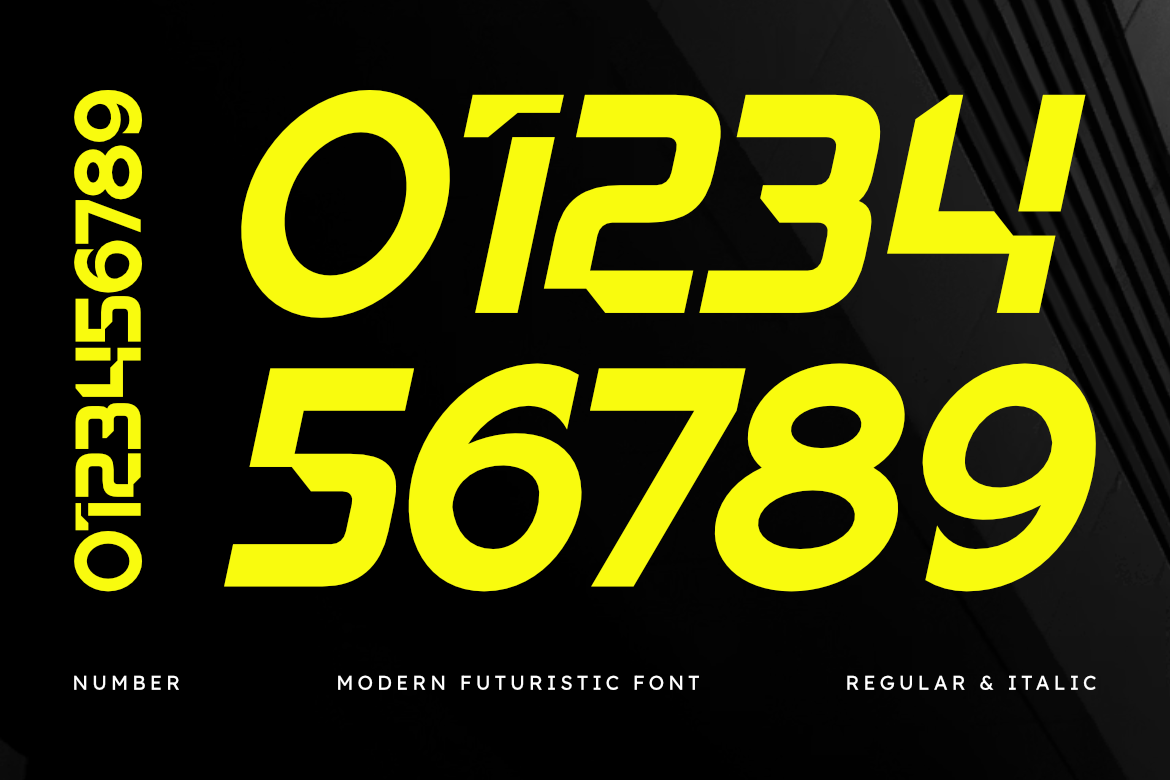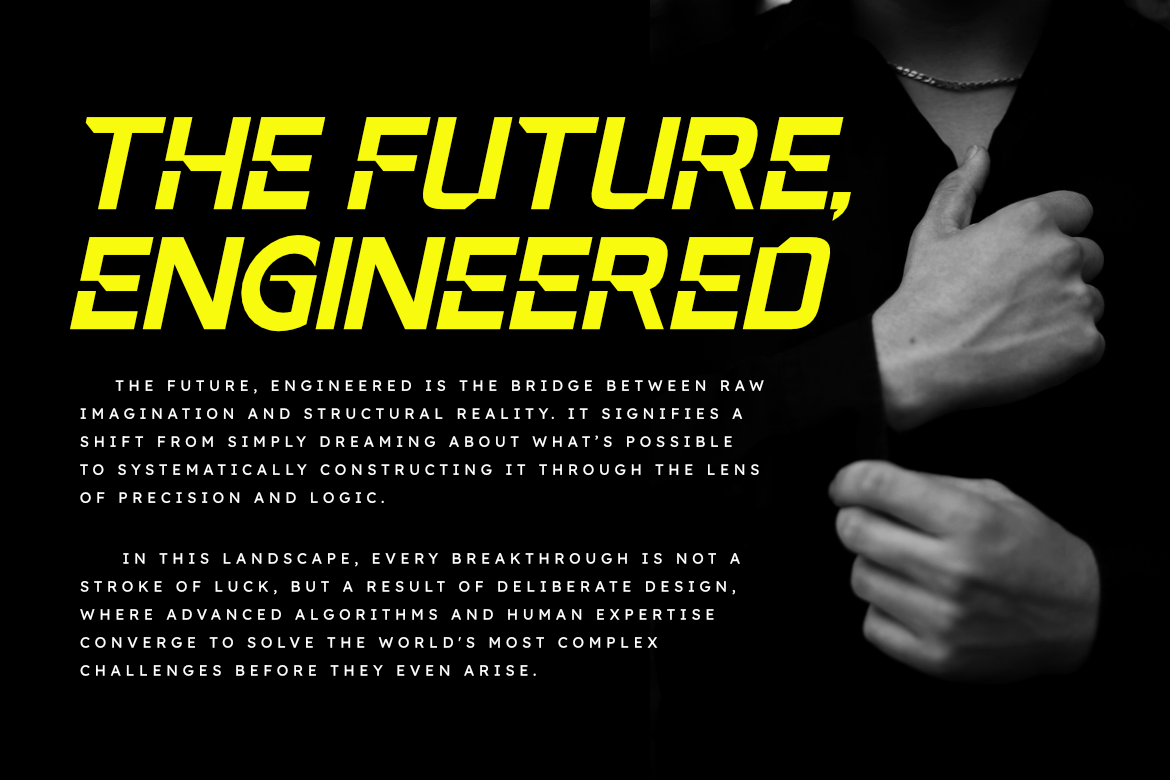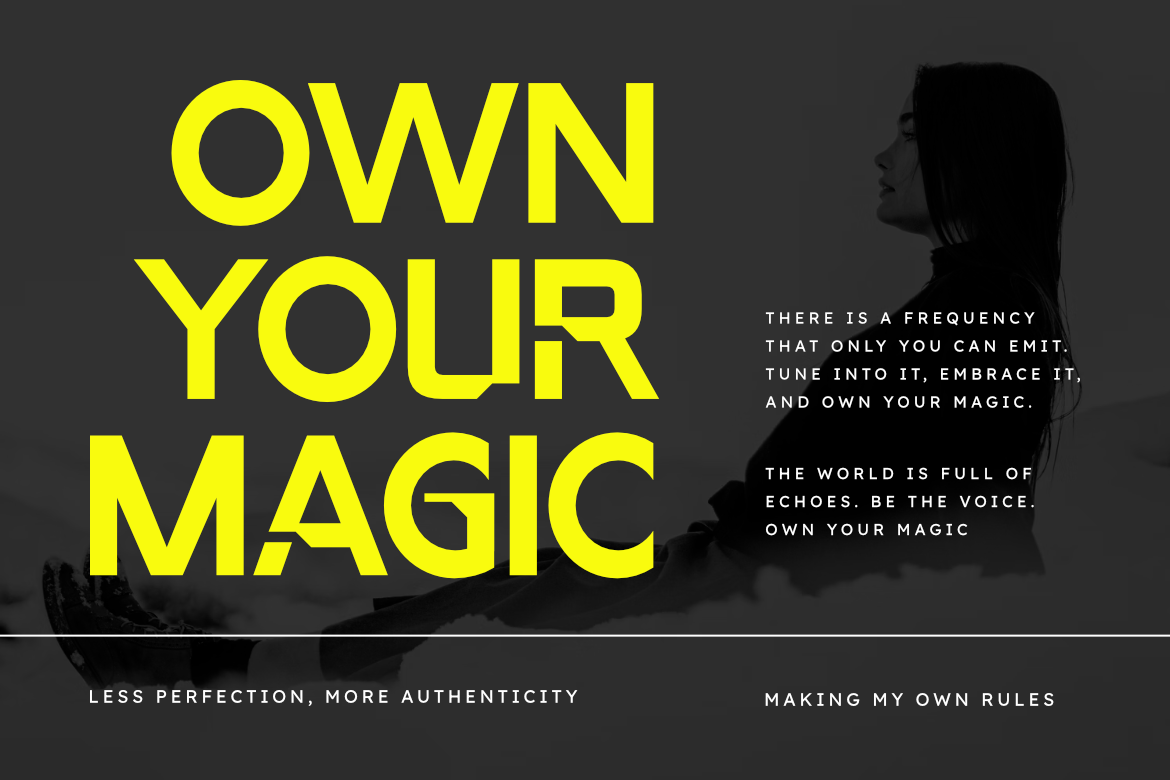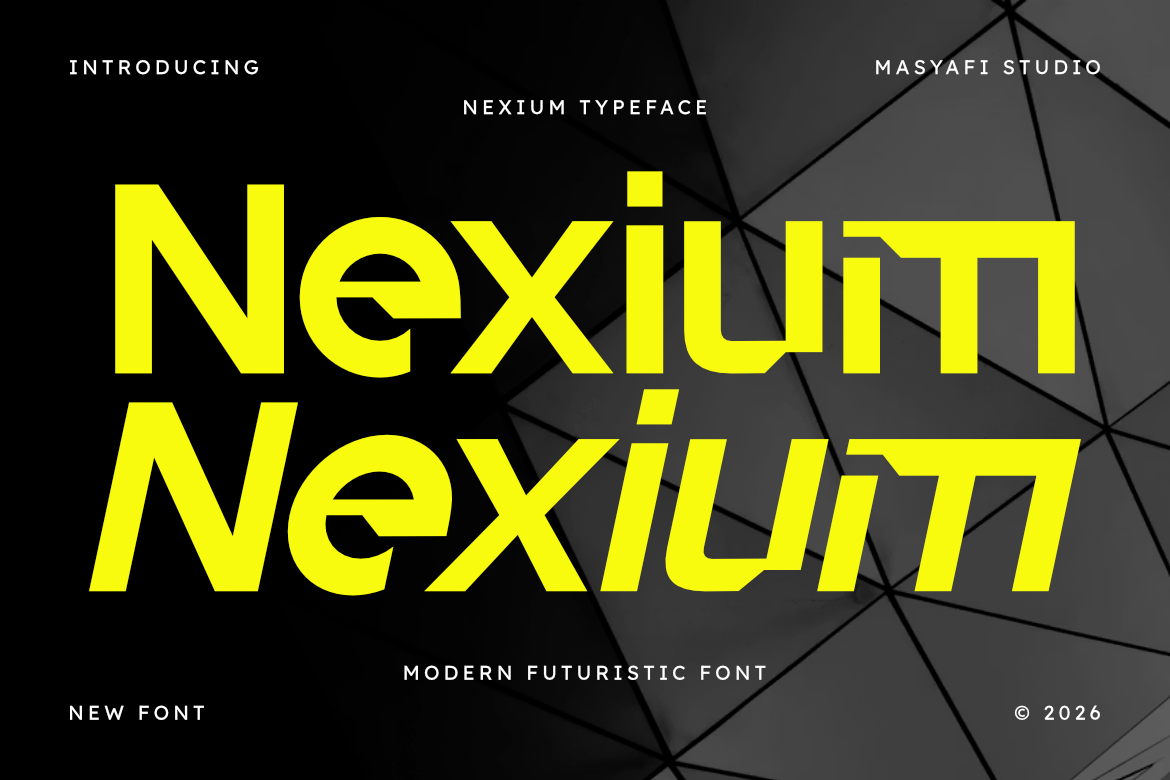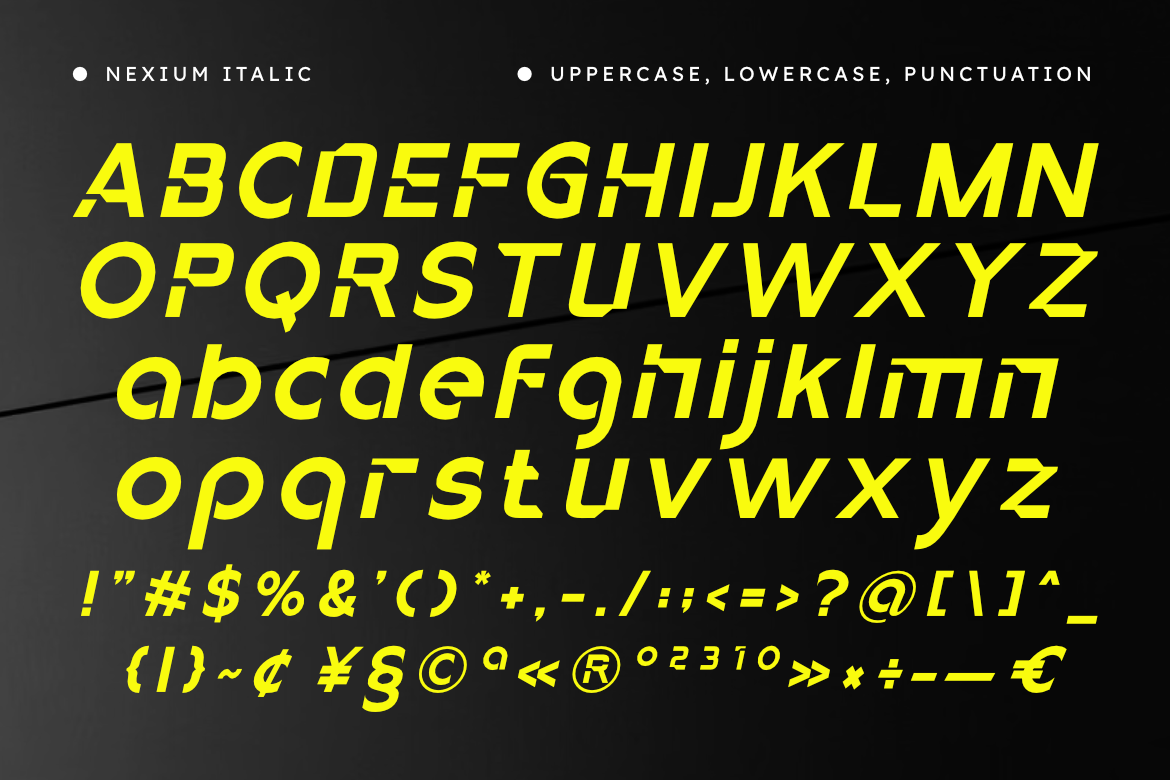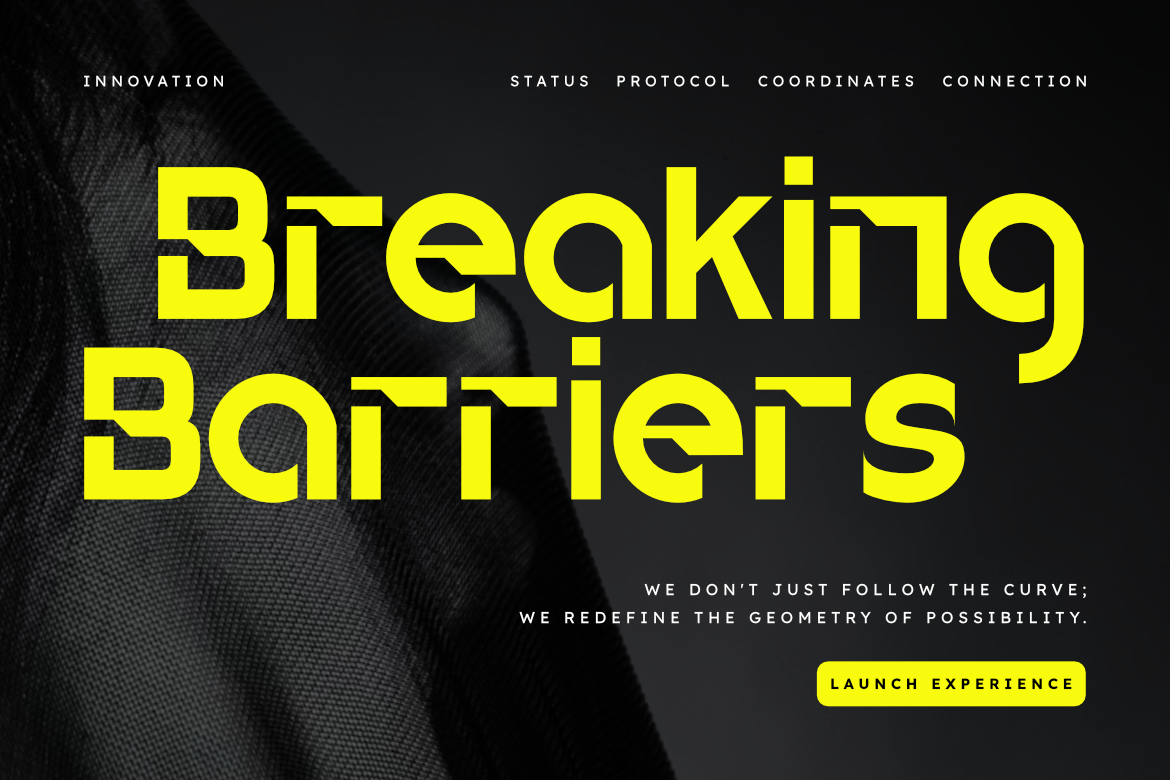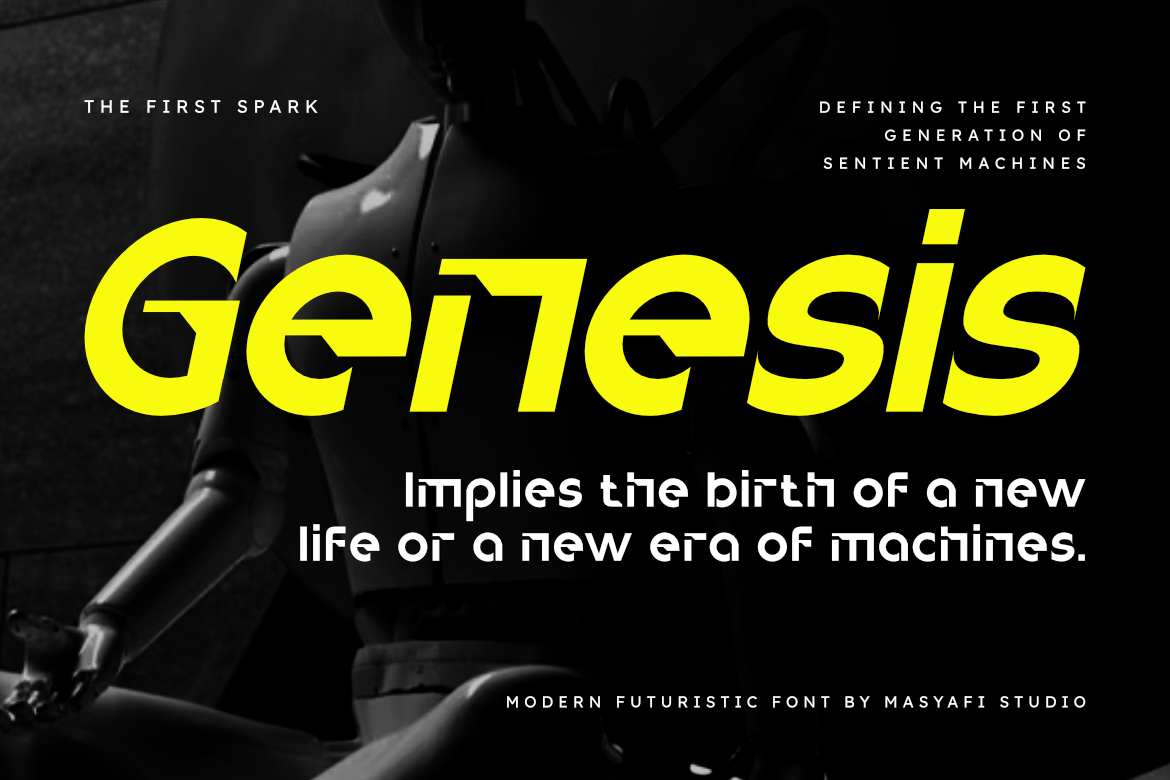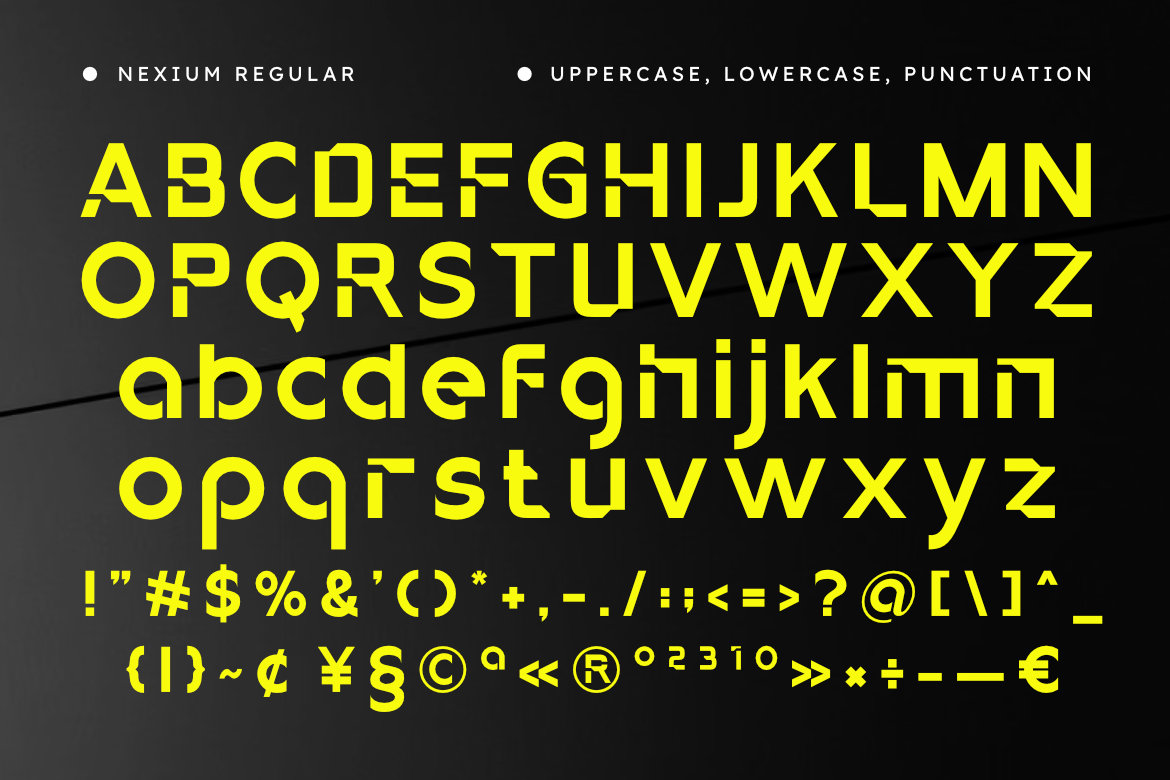
Nexium - Modern Futuristic Font
Modern Futuristic Font for Technology Brand Identity dan Logos
Nexium - Modern Futuristic Typeface
Nexium is a cutting-edge futuristic font designed to bring a bold, high-tech aesthetic and industrial precision to your modern design projects.
This typeface embodies the perfect synergy between digital innovation and geometric structure. Its unique stencil-cut letterforms provide a sense of motion and mechanical power, maintaining a minimalist look while exuding a sophisticated sense of luxury and refinement.
Whether you are crafting a brand identity for a tech startup, designing high-impact gaming interfaces, or creating sleek business cards, Nexium offers the versatility to elevate your visual storytelling. It is ideal for professional logos, corporate materials, and professional presentations.
Inspired by the fast-paced evolution of digital architecture, Nexium offers an adaptable design that empowers you to communicate a polished and modern aesthetic that leaves a lasting impression.
Main Features:
- Modern, High-Tech, and Futuristic style.
- Bold geometric letterforms with unique precision cuts.
- Includes Regular and Italic versions.
- Optimized for high-end branding and display usage.
- Multilingual support.